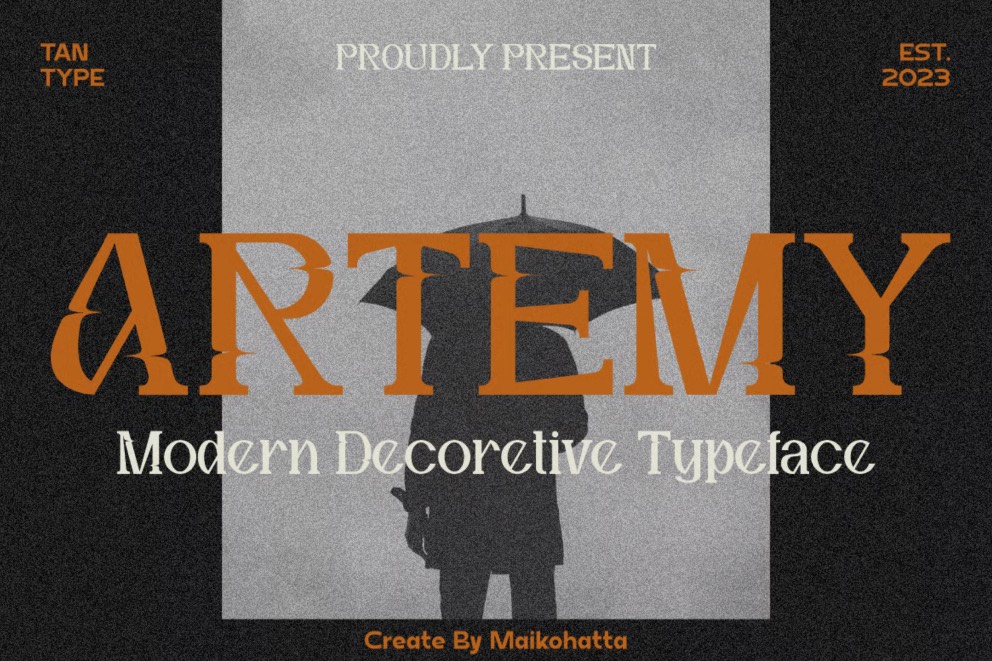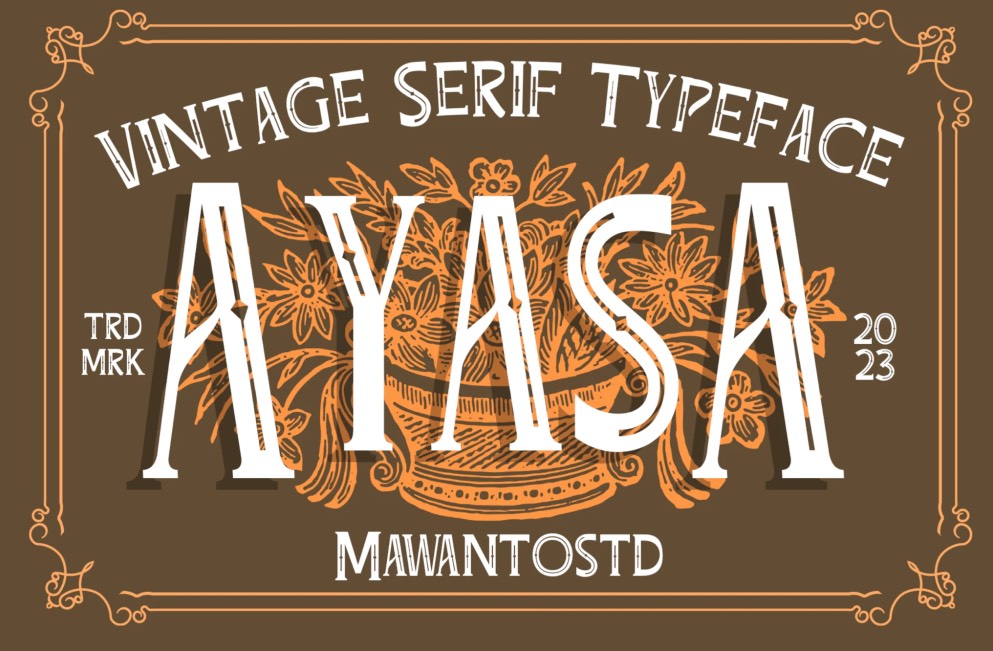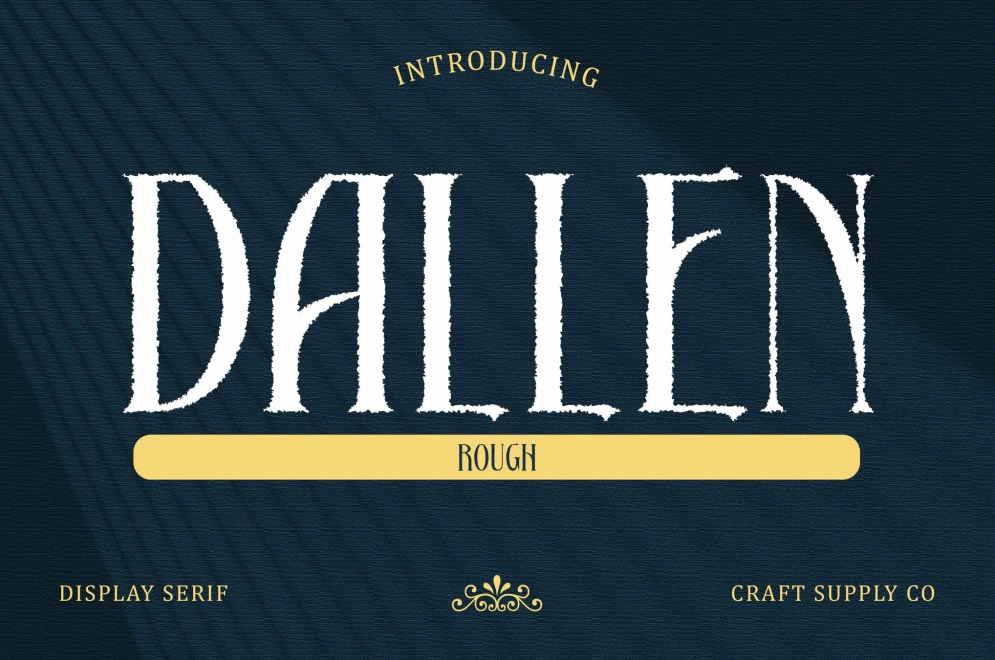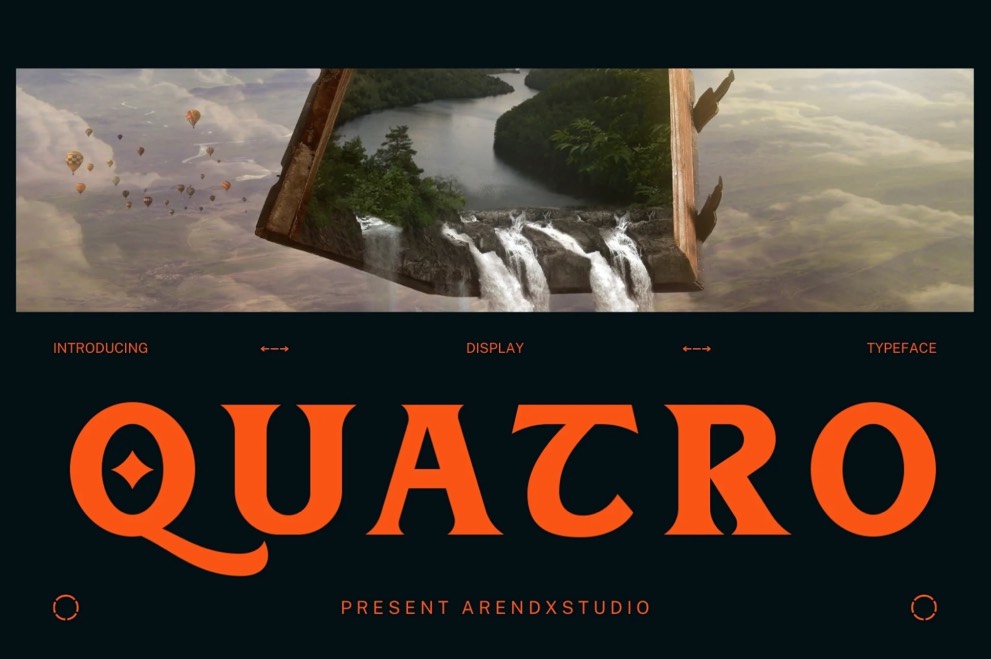
When James Cameron’s Avatar hit theaters in 2009, it instantly became a global phenomenon. Audiences were mesmerized by the lush, glowing world of Pandora—every plant, creature, and floating mountain felt like it had its own story. The world-building was so rich and detailed that fans dove deep into the lore, eager to explore every corner of this alien ecosystem.
Which is why many people were comically stunned when they discovered the font used for the original Avatar title logo: Papyrus.
Now, Papyrus isn’t a bad font at all—it was thoughtfully designed back in 1983 with an Egyptian, hand-drawn feel. The issue wasn’t its look… it was its fame. Papyrus has been used everywhere for decades. It became so common that designers started seeing it as the “I didn’t really think about this” choice. The overuse stripped it of the uniqueness you’d expect from a blockbuster sci-fi universe as inventive as Pandora.
Still, I personally think Papyrus fits the vibe surprisingly well—it has a gentle, organic feel that pairs nicely with Pandora’s serene creatures and bioluminescent landscapes.
For the sequels, however, the team introduced a new typeface called Toruk, designed specifically to reflect the evolving Avatar brand.
• Designer: A web and graphic designer, Chris Costello made this font in 1982 and was released in 1983. Papyrus has been included in many Microsoft programs for Windows, including Microsoft Office as part of its basic installation. This font is free for both personal and commercial use.
• Designer: The Toruk font is credited to John Roshell of Swell Type. Roshell cleaned up the mockups (originally drafted by the art department) and developed the full typeface, including multiple weights. This decision was made after the first Avatar logo was widely mocked. This font should be for personal use only.
Similar Avatar Movie Inspired Fonts
Dallen Font
Dallen font isn’t exactly the close replica of Papyrus or the new Toruk SC typeface but I think that it’s interesting enough. It has ragged edges and its elegantly tall- it’s closer to Papyrus font then it is to Toruk SC. I can really see it as a possible title logo for Avatar. If you are looking for a similar typeface for your creative project- this is not a bad choice at all.
Ayasa Typeface
Another interesting choice would be Ayasa font. Again, not a close replica but it has that old “Indian style” feel to it. There are no ragged paper edges here, but still, we do have tall letters that look similar to the Papyrus capital letters.
Artemy Font
Artemy Font is a more modern take on the Avatar title logo. The sans-serif and the abstract ragged decorations on the letters made me into a believer that this font could work well as a typeface that would essentially replace the Avatar typefaces.
Quatro Typeface
Lastly, you can use the Quatro typeface. This one is more similar to Toruk SC font, it is not so thin and elegant like Papyrus. It lacks the ragged edges and it has more of a “Celtic” style then it has an Egyptian or Indian styled letters- still, I like it as an alternative to Toruk SC.